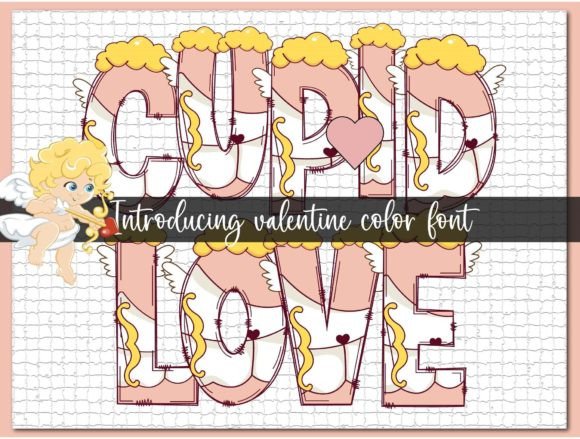
Introducing Cupid Love Font, the ultimate font for all your creative endeavors! This adorable and vibrant font is the perfect choice for Valentine's Day or Mother's Day designs, bringing a touch of cuteness and brightness to your projects. Created by MDF, Cupid Love Font will make your creations stand out from the crowd!
With its playful and fun design, Cupid Love Font adds a splash of color to your artwork, making it visually appealing and captivating. Combined with bright and pastel colors, this font creates a harmonious and eye-catching composition that will surely catch the attention of your audience.
But that's not all! Cupid Love Font is a color font (Opentype-SVG), which means it offers a whole new level of creativity and versatility. Compatible with popular design software like Photoshop, Illustrator, Silhouette, and Inkscape, this font allows you to unleash your imagination and create stunning graphics effortlessly.